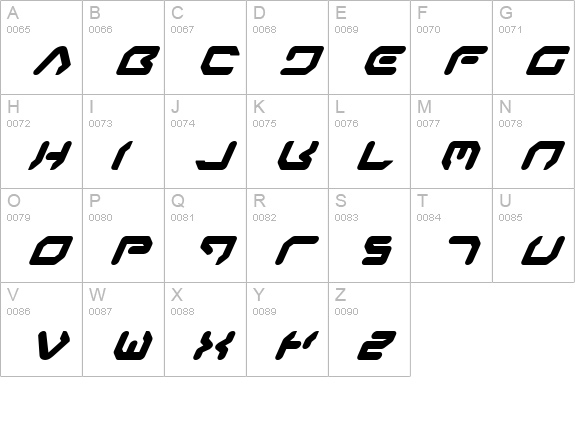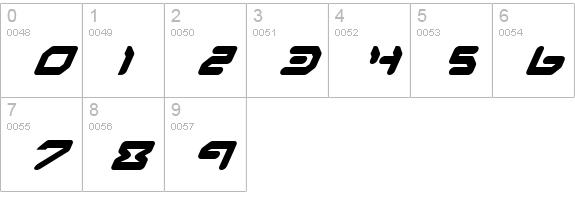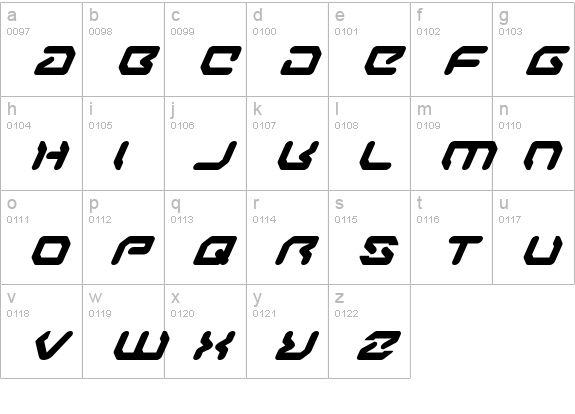
Airstrip One Italic Font Details
Airstrip One Italic is a distinctive, italic variant in the Airstrip typeface family \xE2\x80\x94 well suited to design and typography projects.
Airstrip One Italic font is a sleek and modern typeface that exudes elegance and sophistication. With its slanted design and clean lines, this font is perfect for adding a touch of style to any project. The italicized characters give a sense of movement and fluidity, making it ideal for conveying a sense of motion or energy in your designs. Airstrip One Italic font is versatile and can be used for a variety of design projects, from branding and advertising to invitations and social media graphics. Its bold yet refined appearance will make your text stand out and leave a lasting impression on your audience. Best of all, Airstrip One Italic font is free to download at FontsMarket.com, allowing you to add this stylish typeface to your collection without any cost. Don't miss out on the opportunity to enhance your designs with this stunning font today!